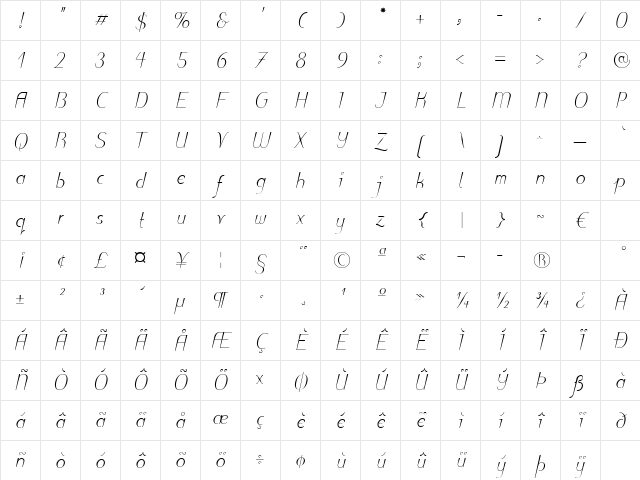
Puritas LT Light Italic
Designer: Joerg Ewald Meissner, Gerd Sebastian Jakob
Design Context for Puritas LT Light
Puritas LT Light is a composed and adaptable typeface that performs quietly and consistently across a wide range of design contexts. The slanted form adds forward momentum and visual energy. Its slender proportions lend an understated elegance to any composition.
Pro Tip: Use Puritas LT Light for emphasis, pull quotes, and subheadings where its slanted energy can add rhythm to the layout.